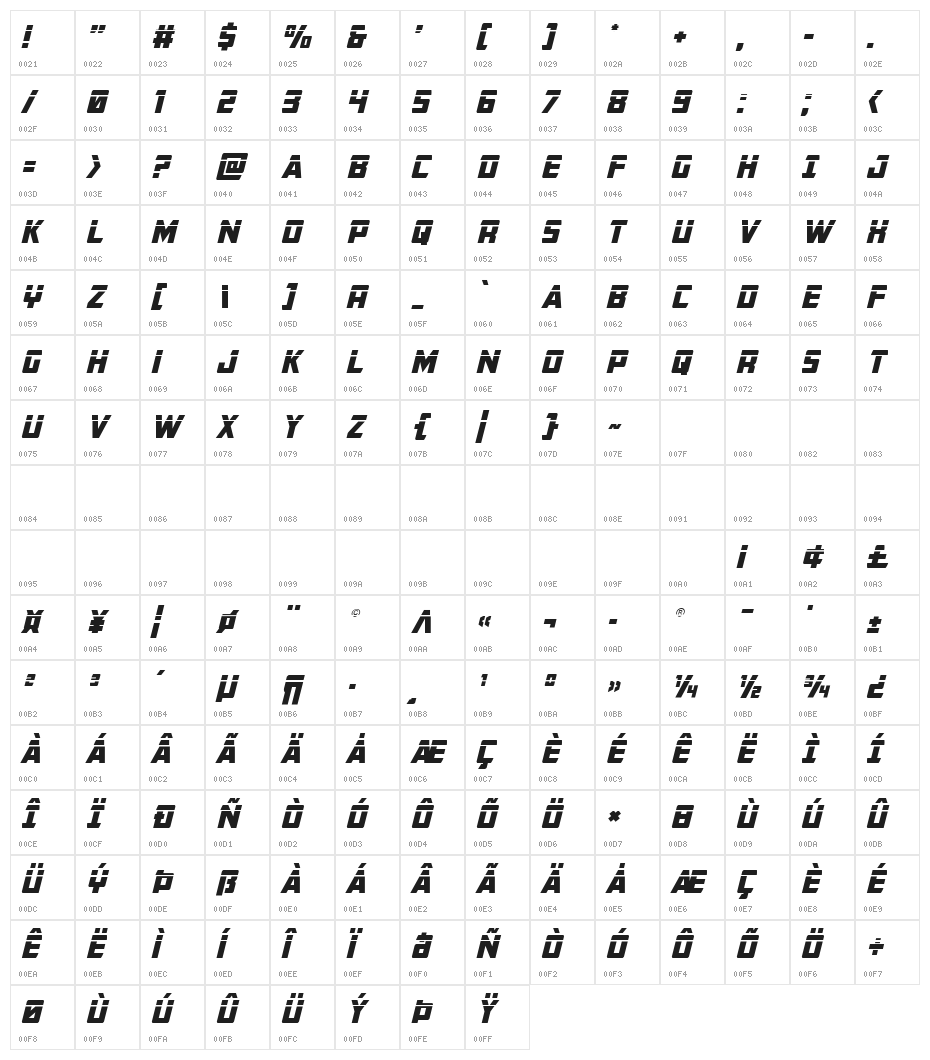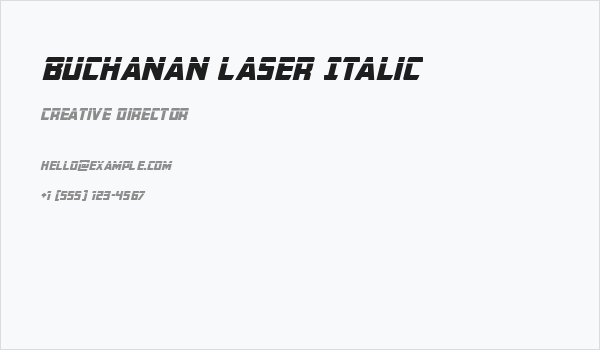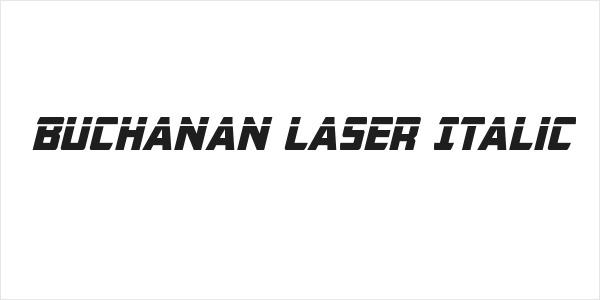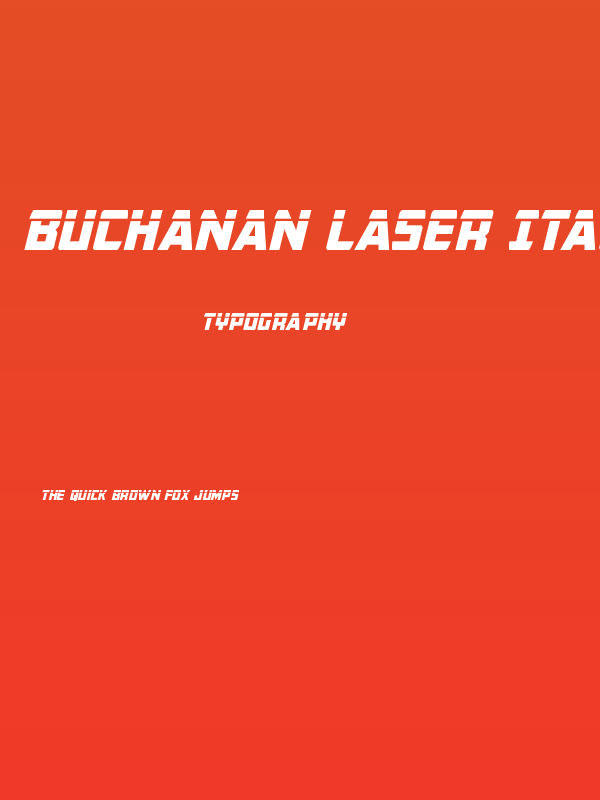
Buchanan Laser Italic Font
Buchanan Laser Italic Description
This font features a bold, italicized style with a futuristic and dynamic appearance. The characters are sharply angled, giving them a sense of motion and energy. The uppercase and lowercase letters maintain a consistent slant, enhancing the italic effect. The numbers and special characters follow the same design principles, ensuring uniformity across all glyphs. The font's bold weight and angular design make it stand out, ideal for projects that require a modern and edgy look.
| Proposed Projects | Ideal for sports branding, tech-related designs, futuristic themes, and dynamic advertising. |